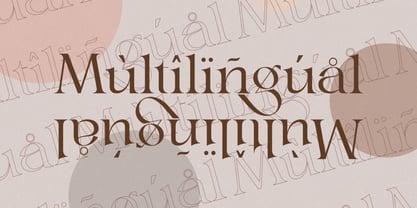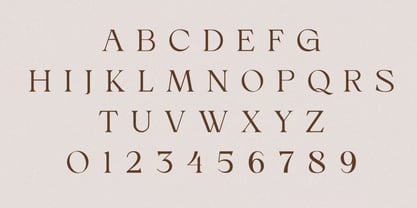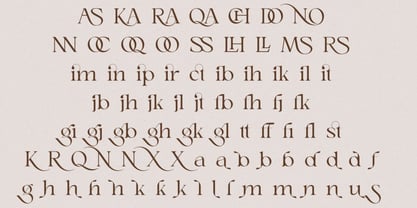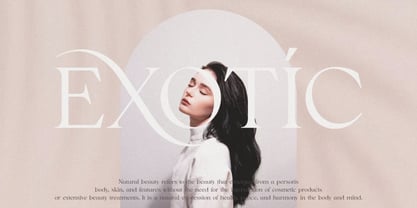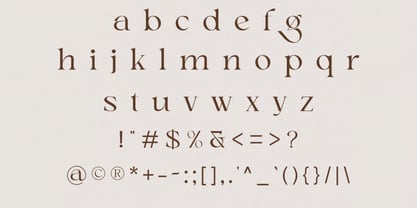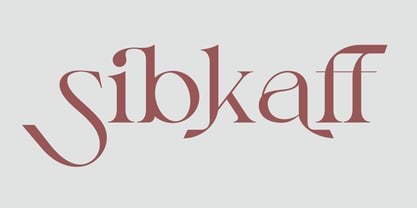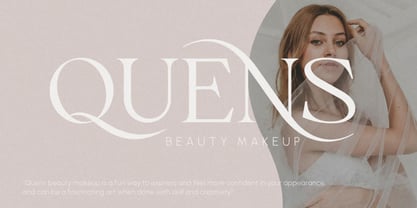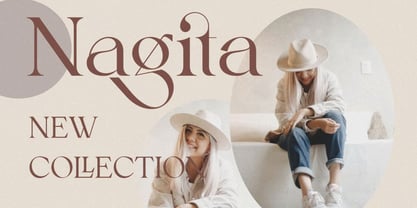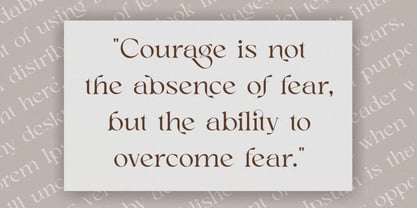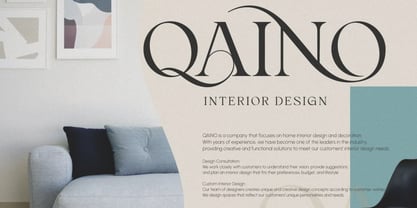
Sibkaff
La familia tipográfica Sibkaff fue diseñada por Hasnat Khan y publicada por Hasnat Studio. Sibkaff contiene 1 estilos. Más información sobre esta familia
Sibkaff is a creative and innovative typeface designed to bring a fresh, distinctive, and memorable look to your design projects. Crafted with unique letterforms, stylish ligatures, and eye-catching alternates, Sibkaff offers a modern typographic experience that helps brands and creatives stand out in a crowded visual landscape.
Featuring a balance of originality and versatility, Sibkaff is perfect for designers looking to create bold brand identities, striking logos, contemporary packaging, editorial layouts, social media graphics, and marketing materials that leave a lasting impression. Its innovative character shapes and refined details make it suitable for a wide range of creative applications, from modern businesses to artistic personal projects.
Whether you're developing a fresh startup brand, designing a fashion campaign, or creating impactful promotional content, Sibkaff provides the visual personality needed to communicate your message with confidence and style.
Key Features:
• Unique & Innovative Typeface: Distinctive character design that stands out from traditional fonts.
• Creative Ligatures: Beautifully crafted ligatures for seamless and stylish typography.
• Alternate Characters: Unique alternates for customized and expressive designs.
• Modern & Versatile Style: Suitable for contemporary, creative, and professional projects.
• Uppercase & Lowercase Characters: Complete character set for flexible typography.
• Clean & Professional Letterforms: Designed for readability while maintaining originality.
• High-Quality Font Construction: Ideal for both digital and print applications.
Perfect For:
• Branding & Logo Design: Create unique and memorable visual identities.
• Creative Business Projects: Perfect for startups, agencies, and modern brands.
• Packaging & Product Labels: Add personality and originality to product presentations.
• Editorial & Magazine Layouts: Create engaging headlines and stylish compositions.
• Social Media Graphics: Design eye-catching posts, banners, and promotional content.
• Advertising & Marketing: Enhance campaigns with fresh and distinctive typography.
• Fashion & Lifestyle Branding: Ideal for contemporary and trend-focused designs.
Make your designs unforgettable with Sibkaff—a fresh and innovative typeface featuring unique ligatures, stylish alternates, and modern character design. Perfect for branding, logos, packaging, editorials, social media, and creative projects that demand originality and visual distinction.